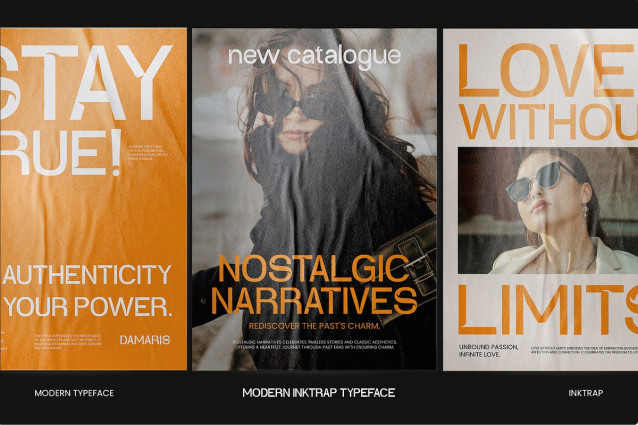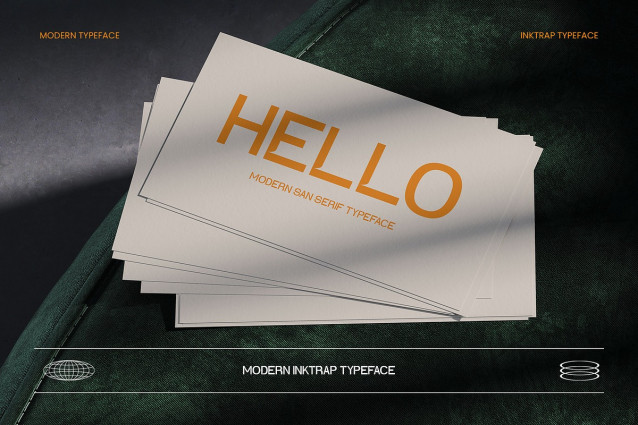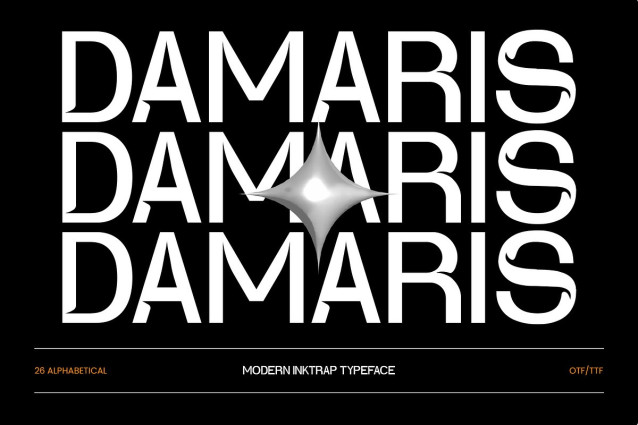
Damaris Font
Damaris Font is a modern inktrap typeface designed with sharp precision and contemporary aesthetics. Its clean lines, distinctive ink-trapped cuts, and geometric structure make it stand out in editorial layouts, tech branding, posters, and digital interfaces. This typeface blends modernist clarity with unique details, perfect for brands that want to project innovation, style, and confidence.